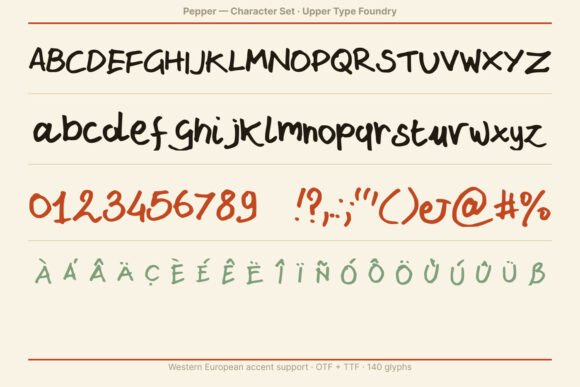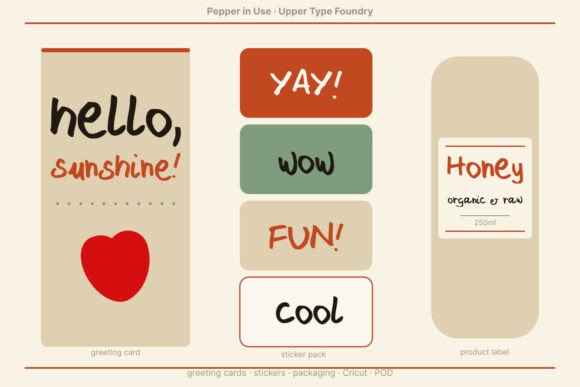
Introduction to Pepper Font Font
Fonts play a crucial role in design, and the Pepper Font font is a typeface that brings both character and versatility to any project. Whether you’re working on a branding project, a website, or a print design, the Pepper Font font offers a unique style that can elevate your work.
Pepper is a casual handwritten marker font with a relaxed, felt-tip feel.
Uppercase, lowercase, numerals and punctuation, with Western European accent support (FR, DE, ES, IT, PT) Perfect for greeting cards, packaging, posters, kids’ materials, craft and Cricut projects, stickers and POD products.
Key Features of Pepper Font Font
Why Choose Pepper Font Font?
The Pepper Font font is more than just a typeface – it’s a design tool that helps you communicate your message with style and clarity. Its unique character set and versatile design make it suitable for a wide range of applications, from elegant invitations to bold headlines.
With its carefully crafted letterforms and balanced proportions, the Pepper Font font ensures readability and visual appeal across all mediums.
What makes Pepper Font font special?
The Pepper Font font stands out with its unique design, exceptional readability, and versatility across various design applications.